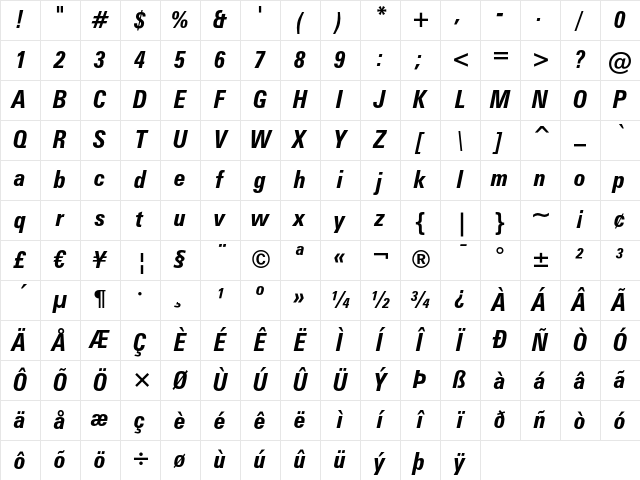
Complete Zurich Bold Condensed Italic glyph index. Displaying only characters natively supported by Zurich Bold Condensed Italic font.
Zurich is a composed and adaptable typeface that performs quietly and consistently across a wide range of design contexts. The slanted form adds forward momentum and visual energy. Its bold stroke weight gives it real presence on the page. Its narrow stance lets it pack a punch even in space-constrained designs.